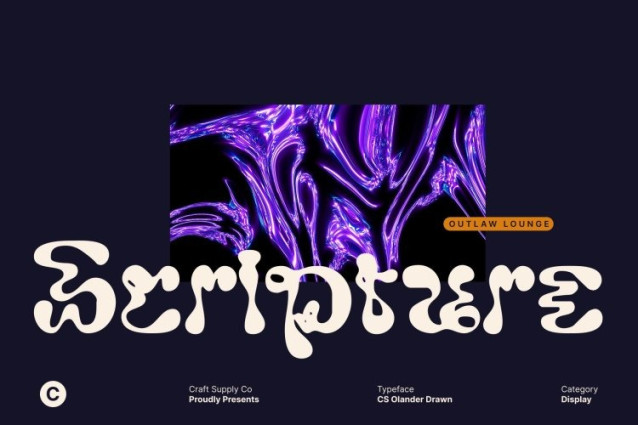
CS Olander Drawn Font
CS Olander Drawn Font This is a display font driven by a trippy aesthetic and fluid psychedelic curves that instantly create an experimental visual experience. Its unconventional shapes and flowing contours give the typography a sense of movement and distortion, making each word feel alive and expressive.
Hand-Drawn Character with Artistic Flow
The hand-drawn character adds an organic, artistic layer that strengthens the font’s playful mood. Subtle imperfections and natural stroke variations enhance the handmade quality, giving the lettering a raw and authentic feel. This drawn texture softens the psychedelic forms while emphasizing creativity and spontaneity, allowing the font to feel both experimental and approachable at the same time.
Playful Mood with Funky Visual Rhythm
This font radiates a fun, energetic personality that fits perfectly with music culture and expressive design. Its trippy curves and overflowing forms create a funky visual rhythm that captures attention and encourages exploration. The font’s lively character makes it ideal for designs that celebrate individuality, imagination, and unconventional aesthetics.
Ideal for Music Branding and Creative Editorials
Designed for high-impact display use, this font works beautifully in music branding, posters, album artwork, and funky editorial layouts. Its unique combination of psychedelic curves and hand-drawn texture ensures strong visual identity and memorability.